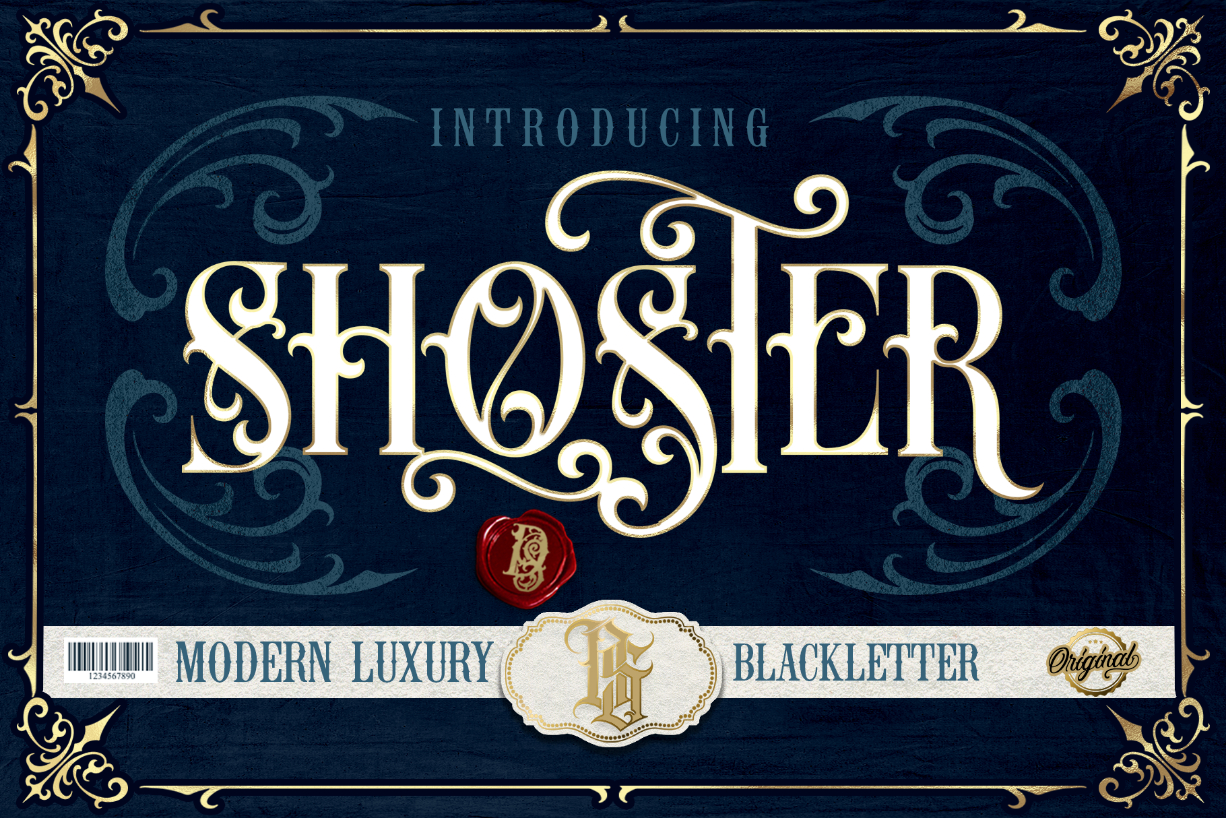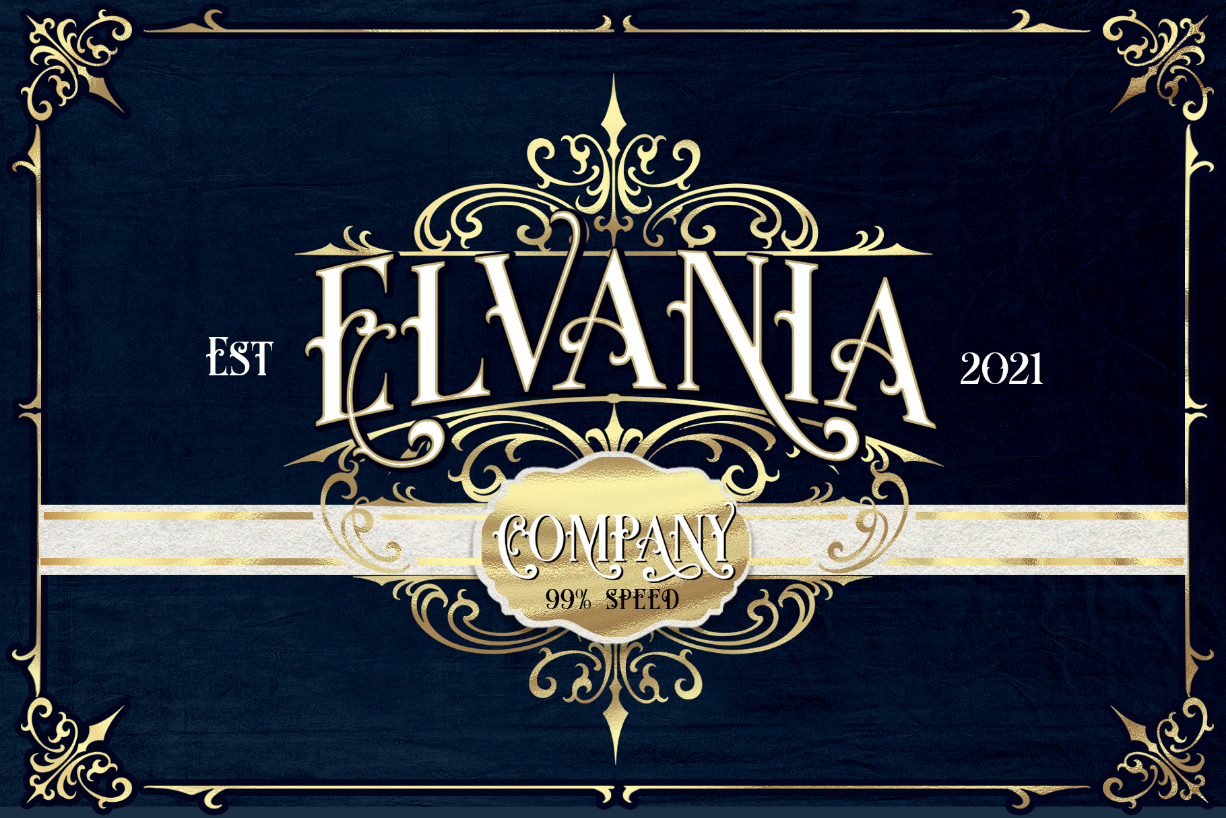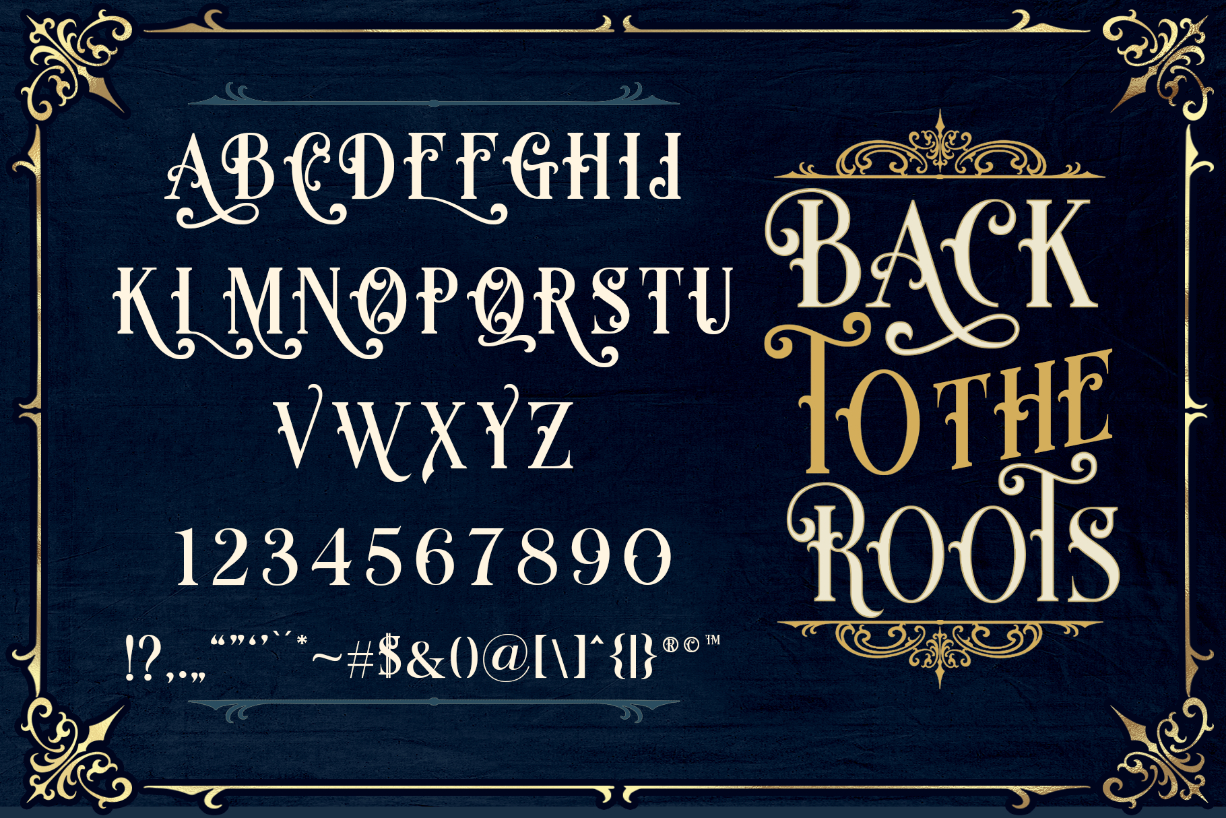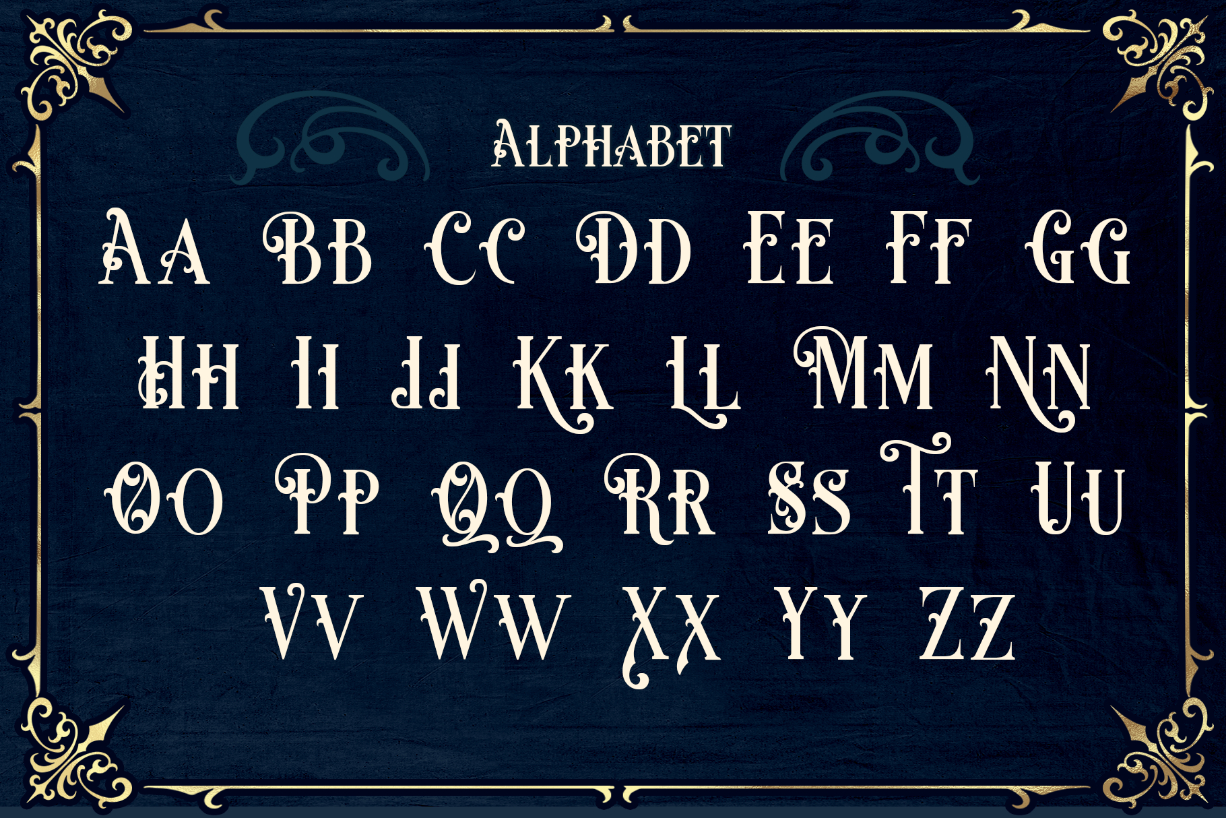
About Shoster Font
Shoster is an authentic, Victorian blackletter font. It has a vintage feel, and as a result, it matches a wide variety of designs. This font is PUA encoded which means you can access all glyphs and swashes with ease!